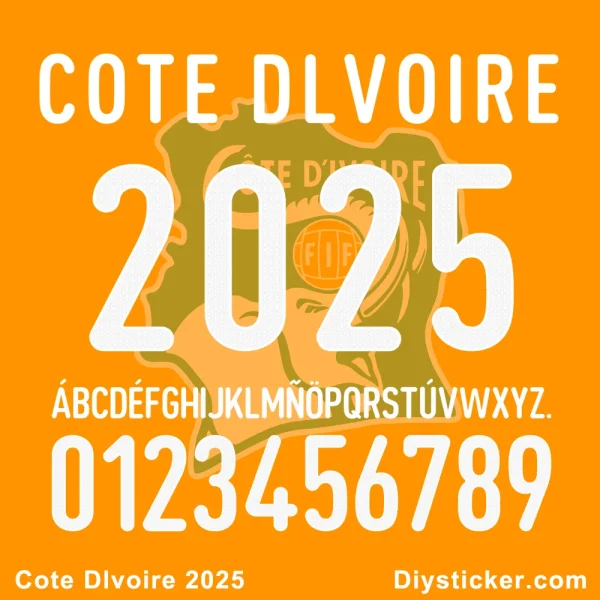
Get the official-style Cote d’Ivoire (Ivory Coast) 2025 national team font! Instantly download TTF, OTF, AI, CDR & PDF vector files for authentic Les Éléphants kits and AFCON designs.
Design with the Spirit of Les Éléphants: The Cote d’Ivoire 2025 Font
Celebrate the power and passion of West African football with the Cote d’Ivoire 2025 National Team Font. This officially-styled typeface is inspired by the design of the Ivory Coast national team, Les Éléphants, perfect for creating authentic kits, fan merchandise, and graphics for the Africa Cup of Nations (AFCON) and beyond.